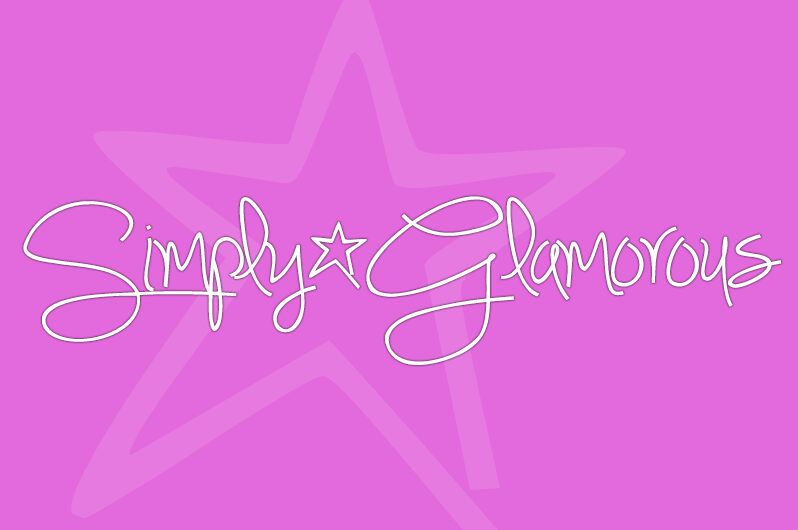
Simply*Glamorous by Brittney Murphy is a free fine-line handwritten font with the sweep and looseness of a quickly drawn signature. Its very slender strokes change direction through broad loops, and several letters stretch into long, open curves. Irregular joins, sudden turns, and shifting proportions keep the writing personal, lively, and distinctly unpolished.
Fashion photography and beauty illustration echo its elongated gestures, making the font suited to cosmetics packaging, boutique branding, and magazine covers with an elegant editorial edge. On invitations and music artwork, the lettering can become part of the image itself, tracing a loose flourish across portraits or decorative line drawings.